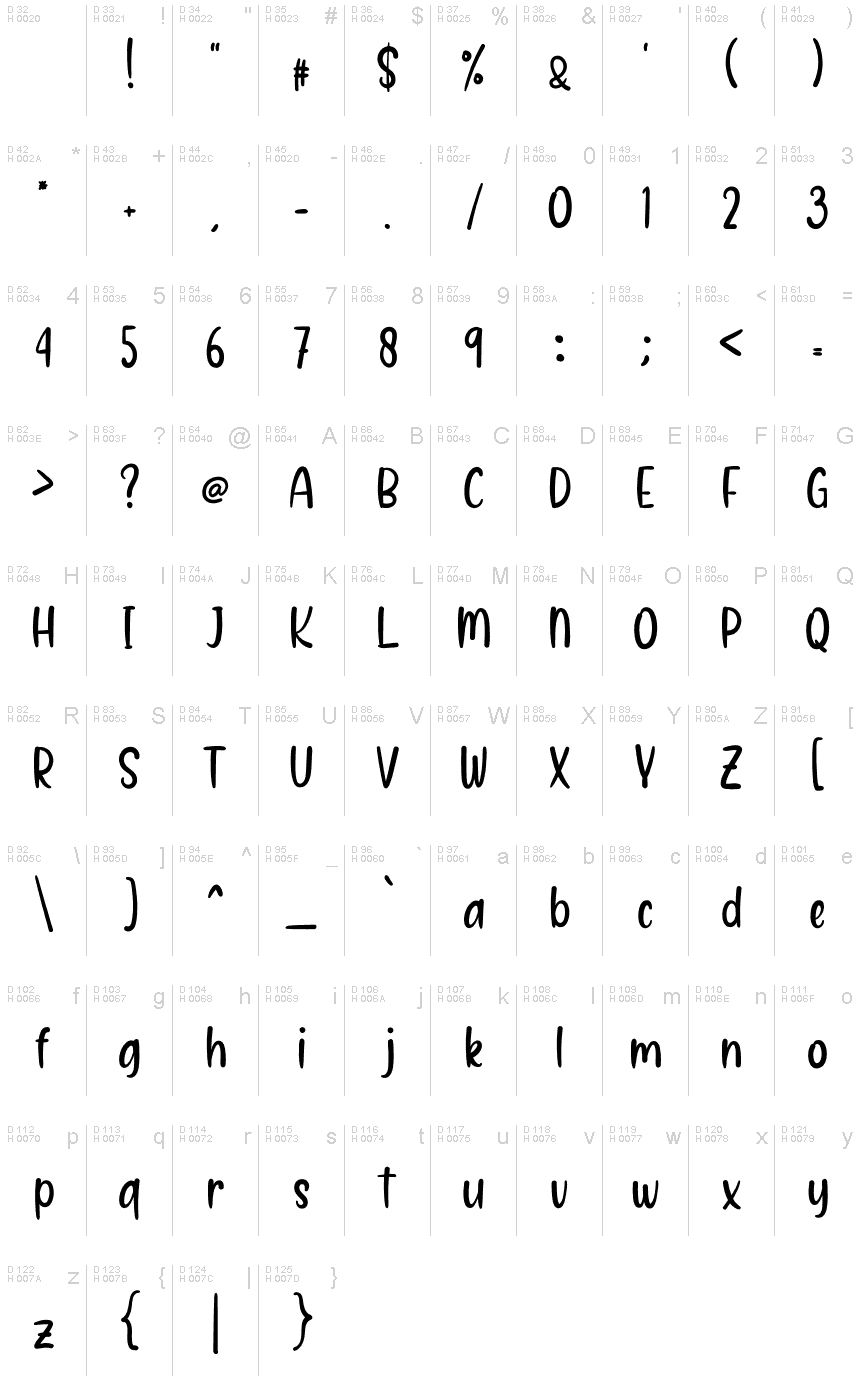
ChristmasSnowfallRegular
Christmas Snowfall font is a lovely free script font designed by Scratchones.
the latest style letters are perfect for wall displays, wedding invitations, social media post logos,
advertisements, product packaging, product designs, labels, photography, watermarks, invitations, stationery,
and any project that requires taste handwriting.